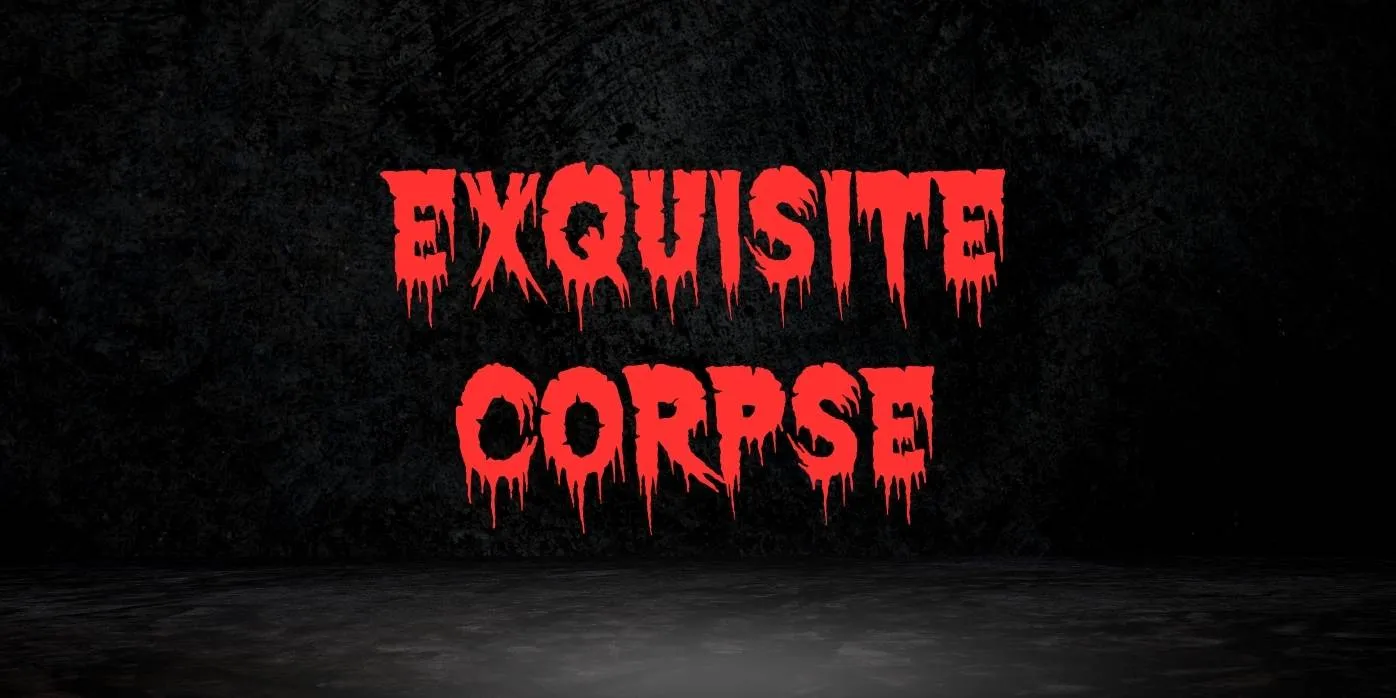
Exquisite Corpse Font
Sinister Fonts designed Exquisite Corpse Font. This texture is a fancy typeface. The characters of this font are bold, readable, and horror-type. This unique typeface can be installed and used on many operating systems such as computers, Macs, Linux, IOS, and Android.